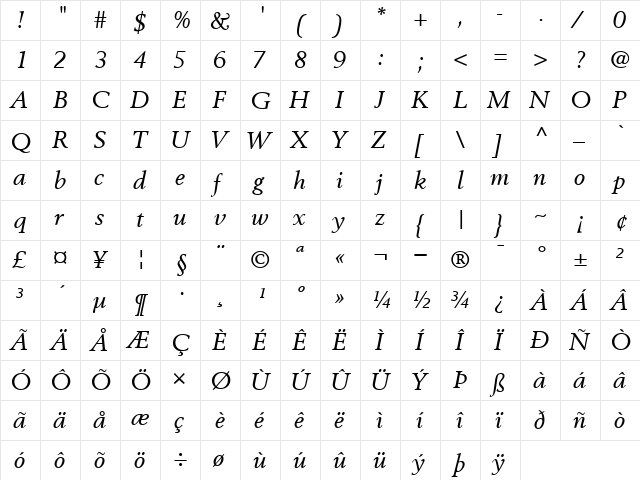
VolvoSerif Italic
Design Context for VolvoSerif Typeface
VolvoSerif carries the refined structure of traditional serif typography, with bracketed terminals and considered proportions that communicate credibility and craft. Its italic angle brings a sense of urgency and motion to the letterforms.
Pro Tip: Set VolvoSerif with slightly loose tracking in headlines to let each letterform's detail read clearly at display sizes.